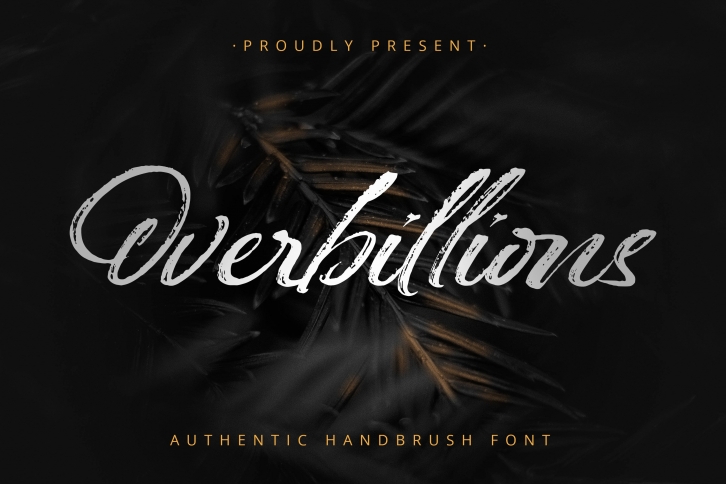
Overbillion is a trendy and unique font with an authentic style. It was designed by Almarkhatype and it's a great choice for creative people who need such a font. It was released on January 21, 2022 and the file size is 6.80 MB. Overbillion will add an organic vibe to any design idea!